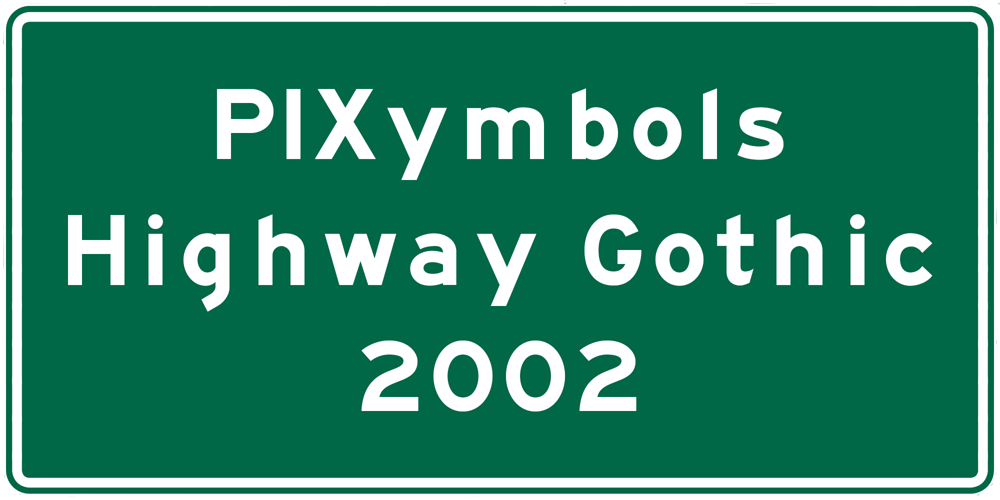
PIXymbols Hwy Gothic2002 Font Family was designed by Roger Vershen and published by Page Studio Graphics. PIXymbols Hwy Gothic2002 contains 7 styles and family package options. Highway alphabets designed for use in the production of highway signs. Designed to meet the specifications in the U.S. Department of Transportation’s Standard Highway Signs 2002 Edition (Metric), which includes Standard Alphabets, as specified in the MUTCD Millennium Edition, Revision 1. There are 3 spacing options: spacebar is equal to 10% of the glyph height, < is 30%, and > is 50%.The family package includes the DOTborder font, which provides a convenient way to create shield borders for highway signs. The DOTborder font is free for download if you purchase an individual style.